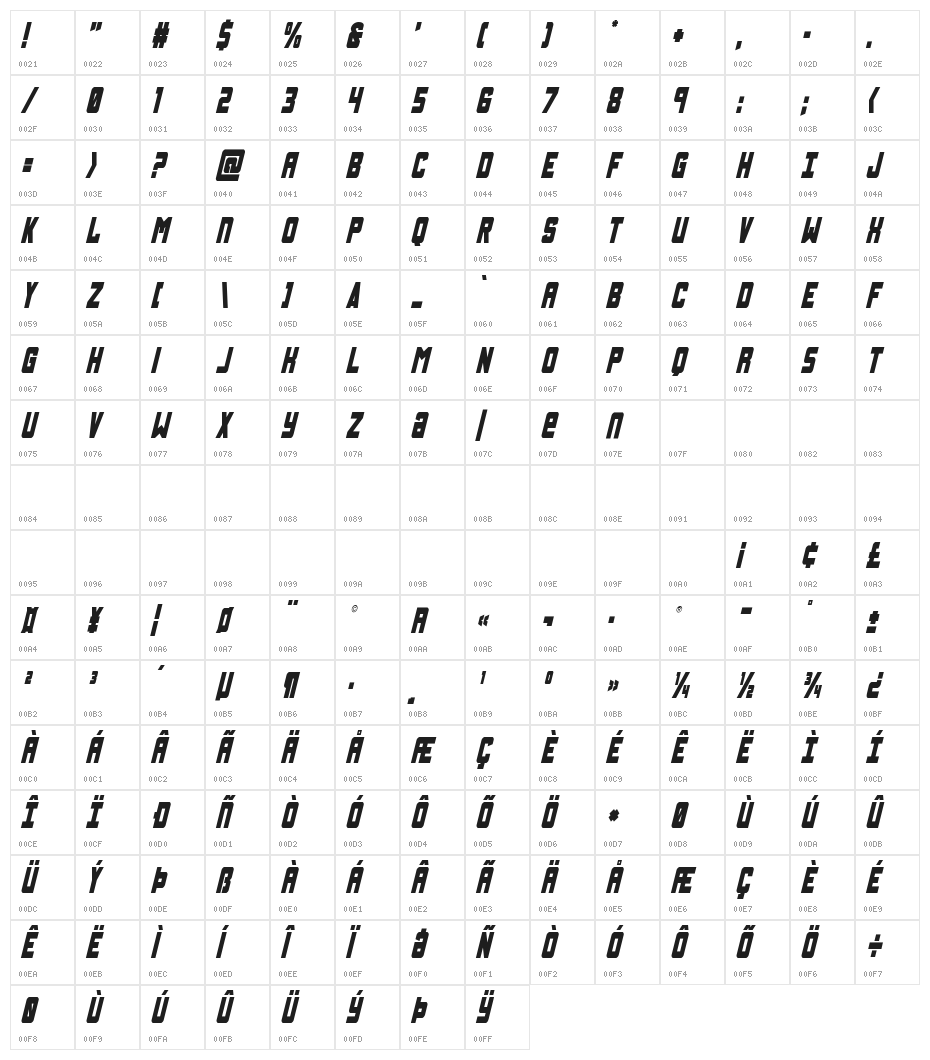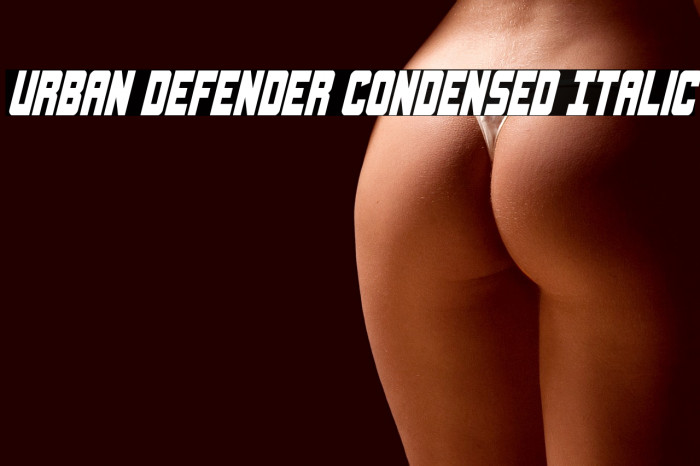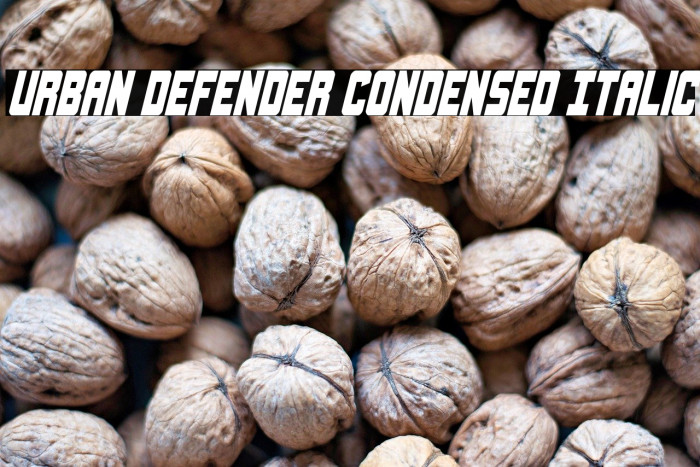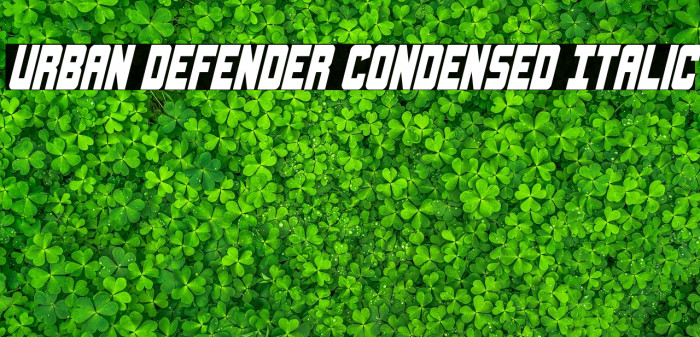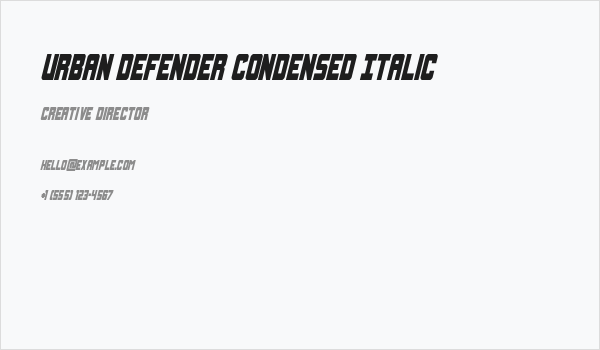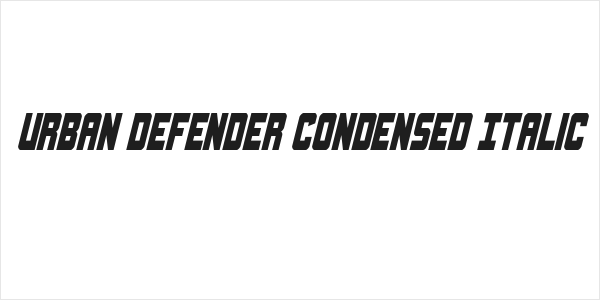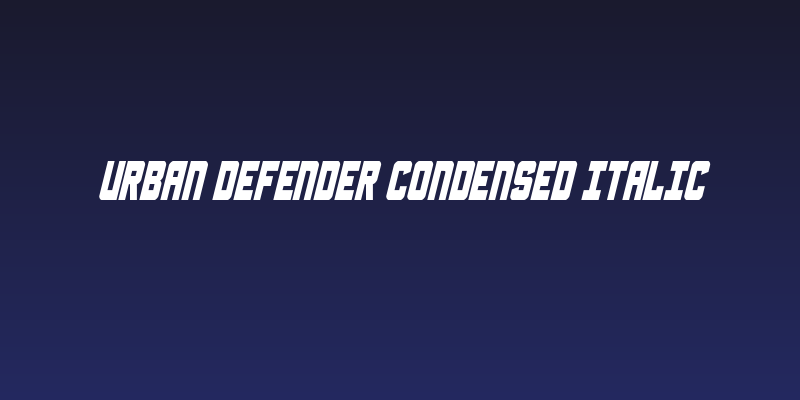
Urban Defender Condensed Italic Font
Urban Defender Condensed Italic Description
This font features a bold and dynamic style with a condensed and italicized form, giving it a strong, impactful presence. The uppercase letters are angular and sharp, with a forward-leaning slant that conveys motion and urgency. The numbers and special characters maintain this bold, condensed style, ensuring consistency across all characters. The font's design is modern and assertive, making it suitable for projects that require a strong visual impact.
| Proposed Projects | Ideal for sports branding, action movie posters, urban-themed designs, and dynamic advertising campaigns. |